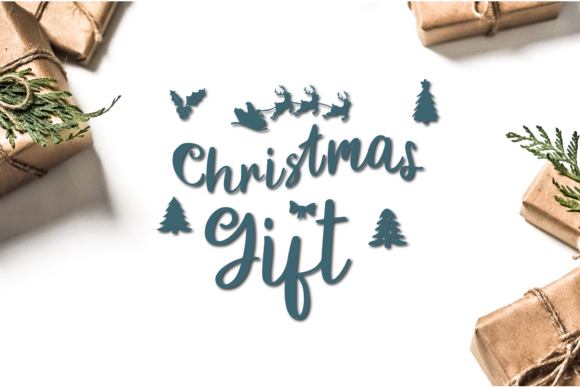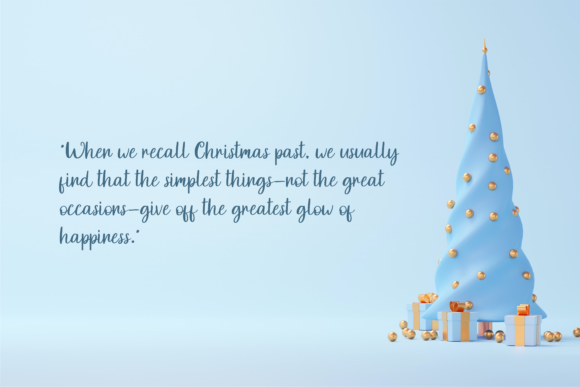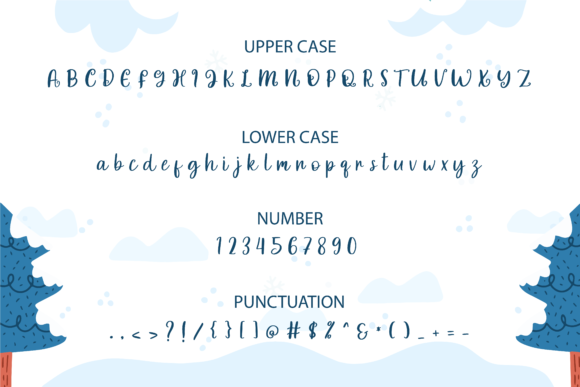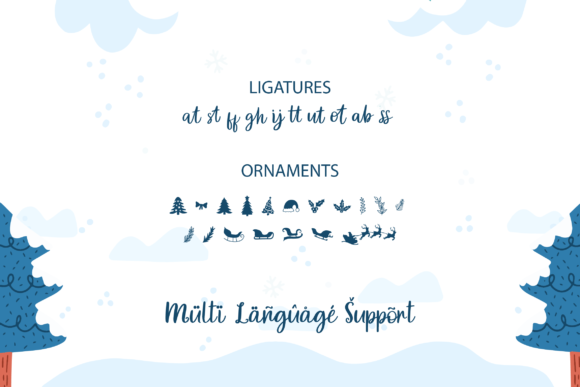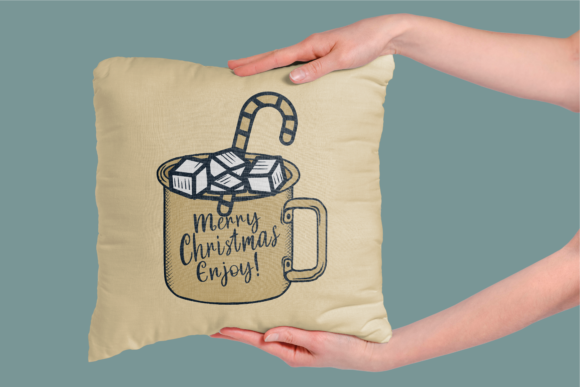
Kringless Font
About Kringless Font
Kringless is a beautiful and sweet calligraphy typeface with characters that dance along the baseline. It will add a luxury spark to any design project that you wish to create!